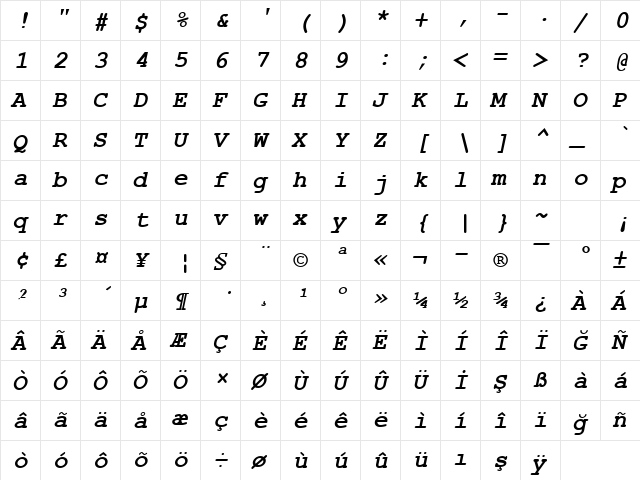
TR Courier New Bold Italic
Design Context for TR Courier New Typeface
TR Courier New uses fixed-width spacing throughout, giving it the structured, systematic character associated with coding environments and technical documentation. Its italic angle brings a sense of urgency and motion to the letterforms. Its bold stroke weight gives it real presence on the page.
Pro Tip: Pair TR Courier New with a proportional sans for UI contexts where code-style labels and regular body copy need to coexist.